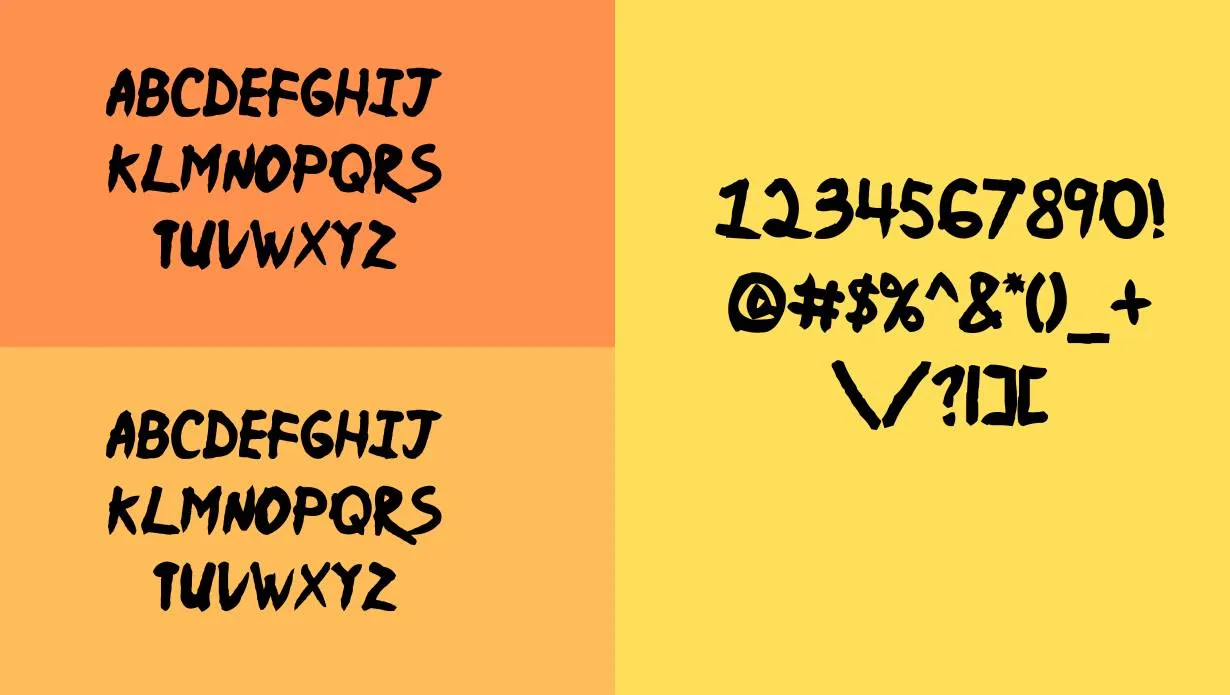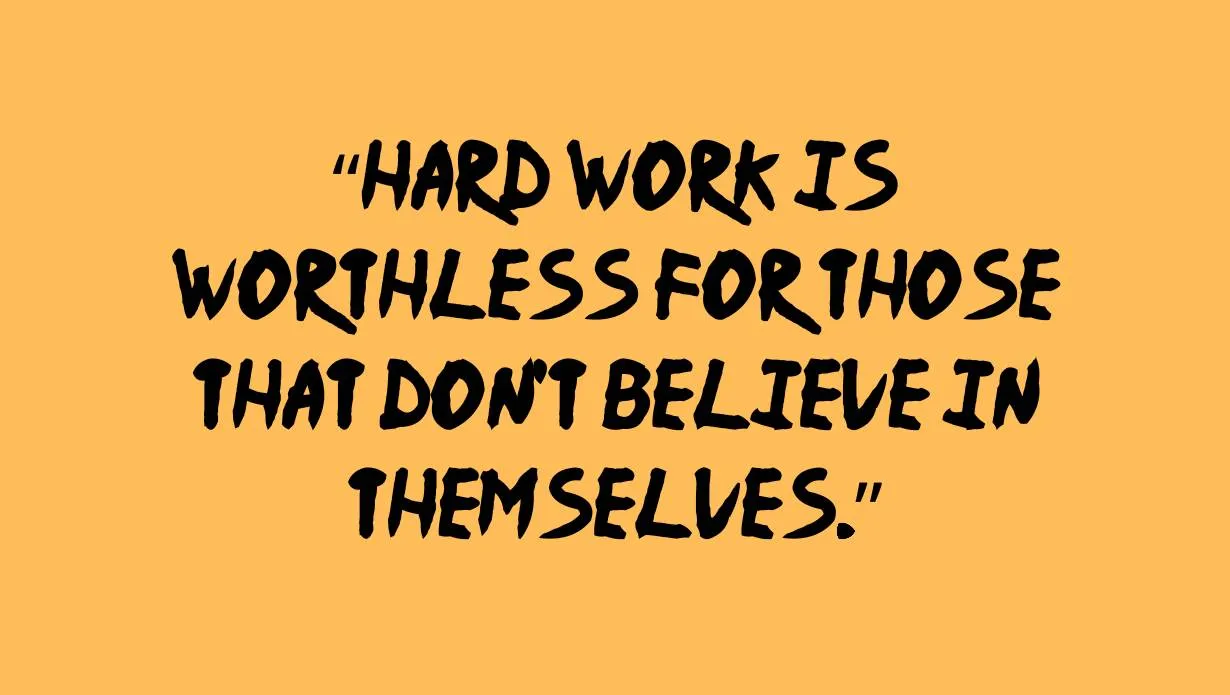
Ninja Naruto font was designed by Sk89q and it is manufactured by Risen Realm and Keiichi Anime Forever. It is a very attractive brush-type font.
| Name | Ninja Naruto Font |
| Designer | Sk89q |
Ninja Naruto Font Family